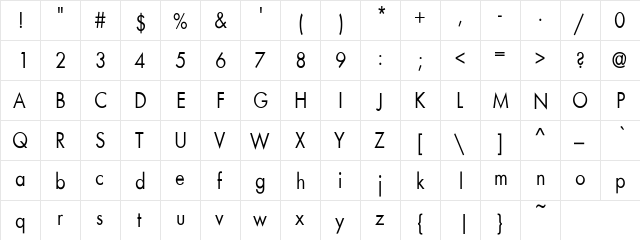
FuturaCnd-Norma Regular
Design Context for FuturaCnd-Norma Typeface
FuturaCnd-Norma channels digital-age aesthetics through its sharp, structured letterforms — ideal for brands that want to signal innovation.
Pro Tip: Use FuturaCnd-Norma in combination with a neutral sans for body text. Let it define the brand voice in headlines while keeping reading comfortable elsewhere.